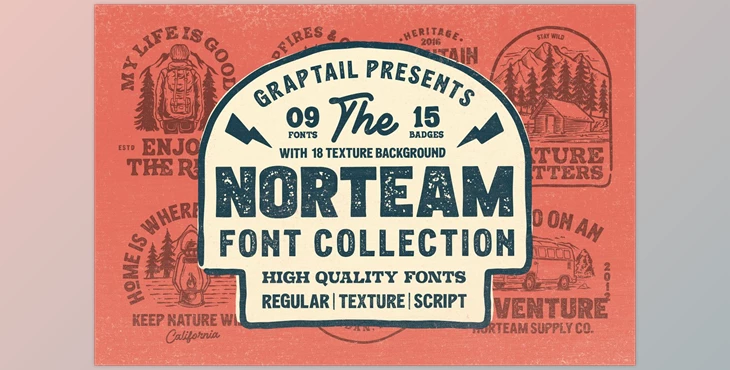
Norteam | Font Collection CreativeMarket 6326281: The first release of the Norteam hand-crafted font collection! All fonts, badges, and vectors are included in the collection. Nine styles of fonts! Textured, Clean & Script, enjoy! :)
Norteam Fonts collection contains a collection of four texturing fonts and five simple fonts that have an authentic hand-crafted look. The fonts are influenced by the vintage designs of shirts and work well to create packaging, logos, or titles with a hand-made look. In addition, this set includes an editable set of 15 Badges templates that work with Adobe Illustrator (CS & CC) and much more than hand-drawn vectors! It makes badge and logo design much more accessible than before! To complete the package, I've added 18 different backgrounds that will show your designs in a positive mood.